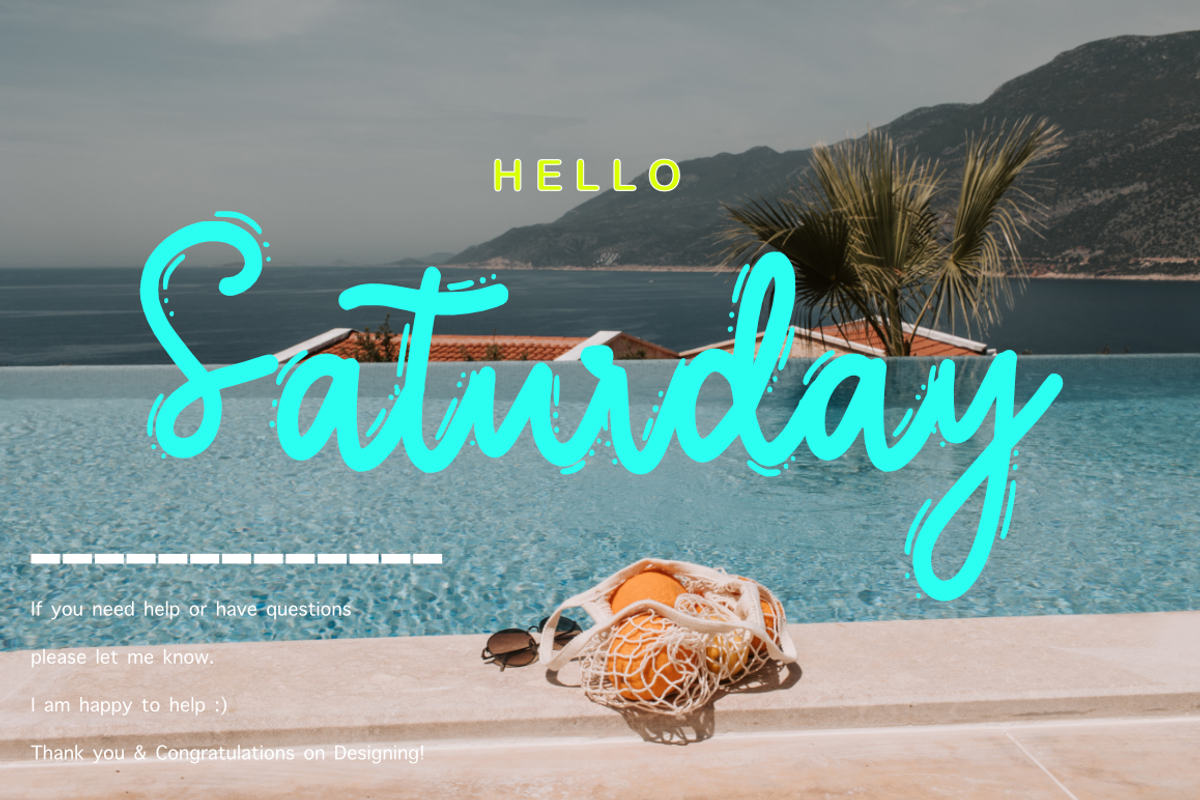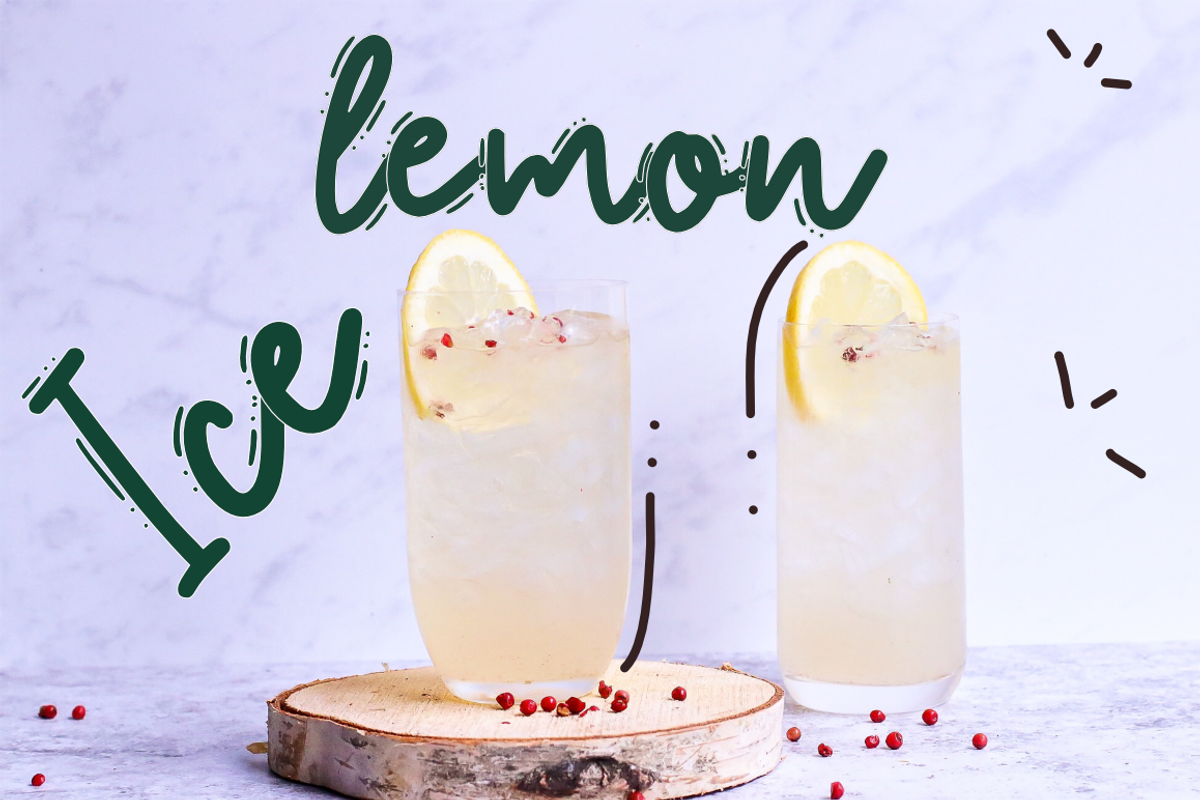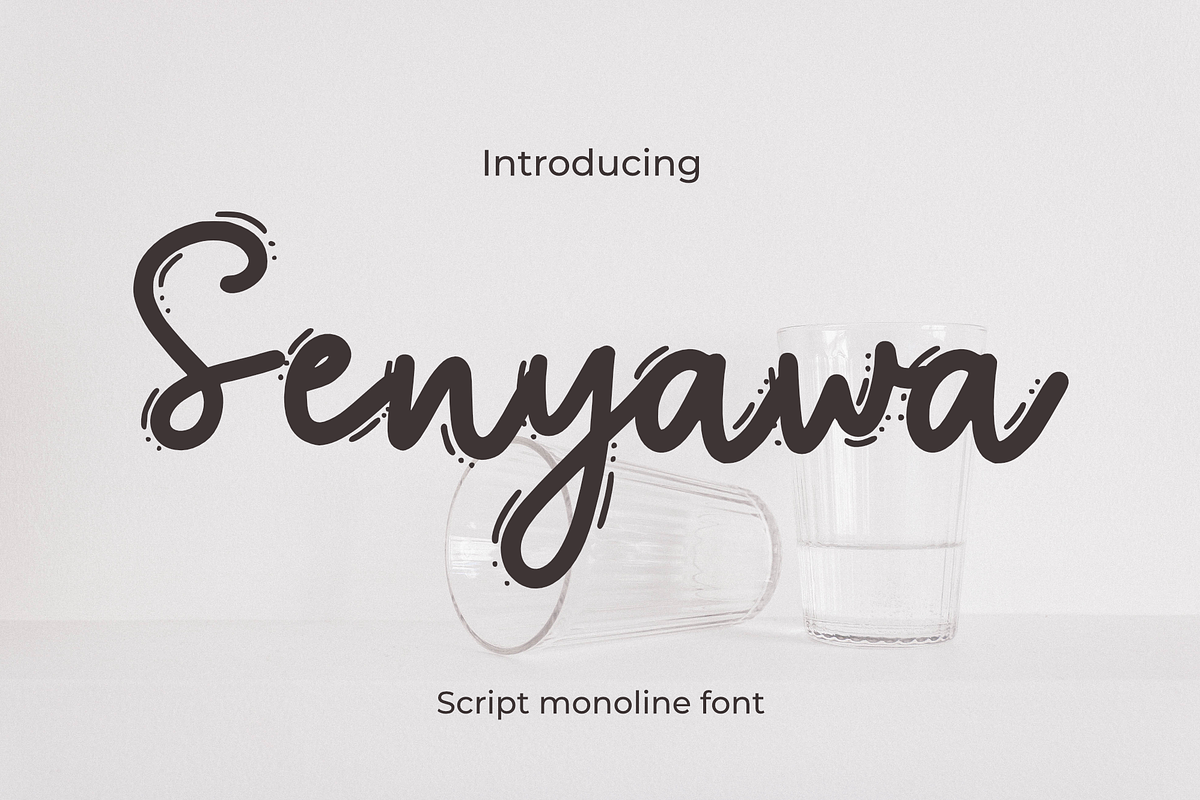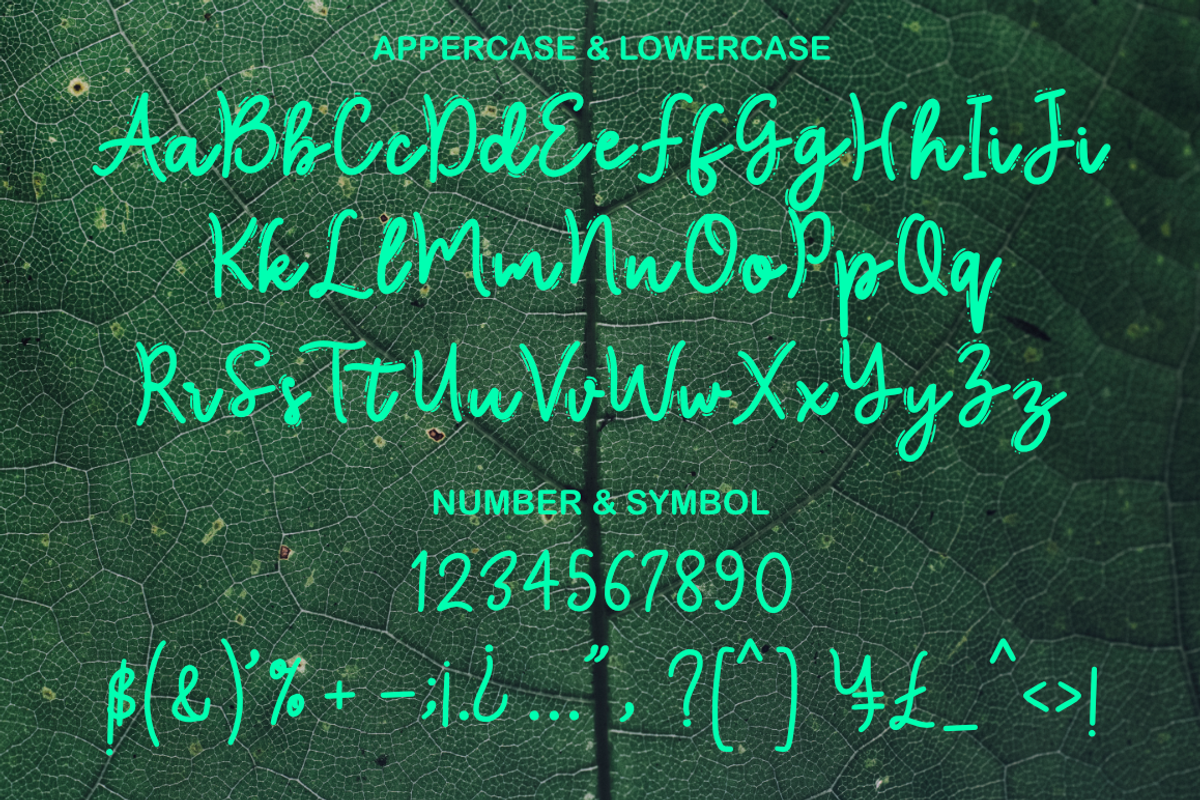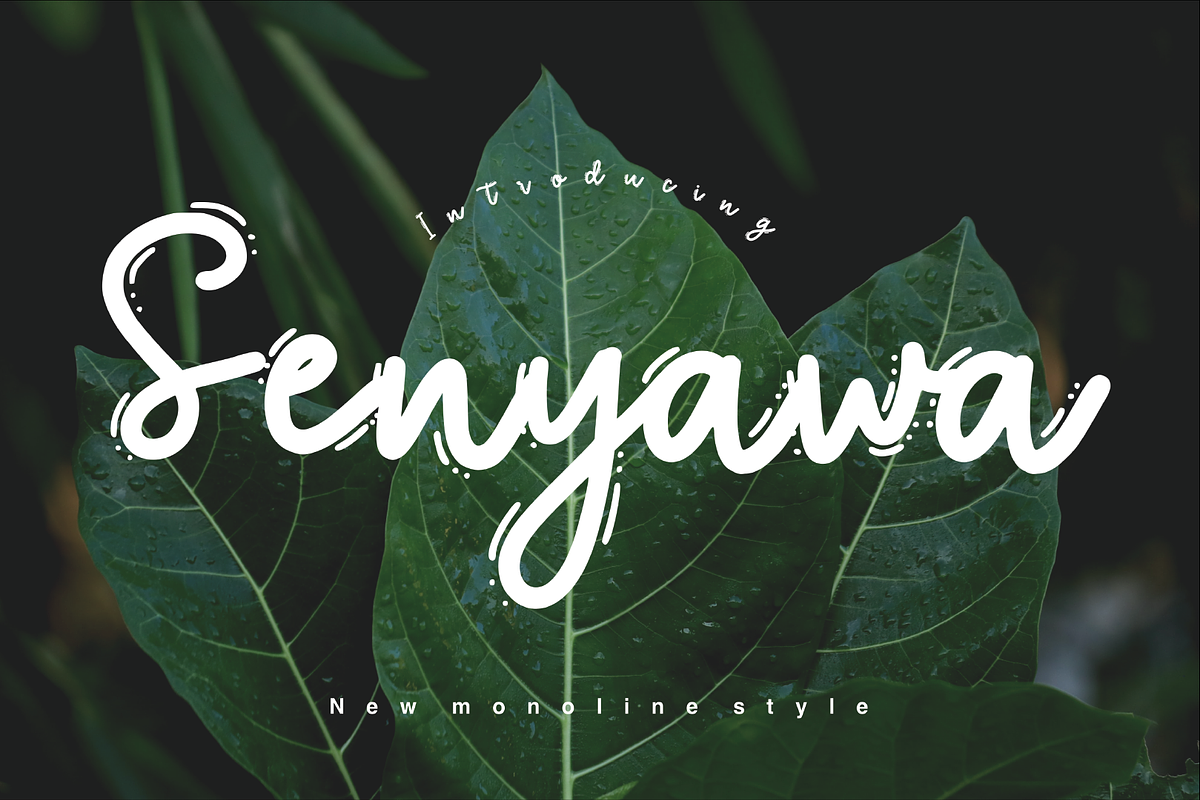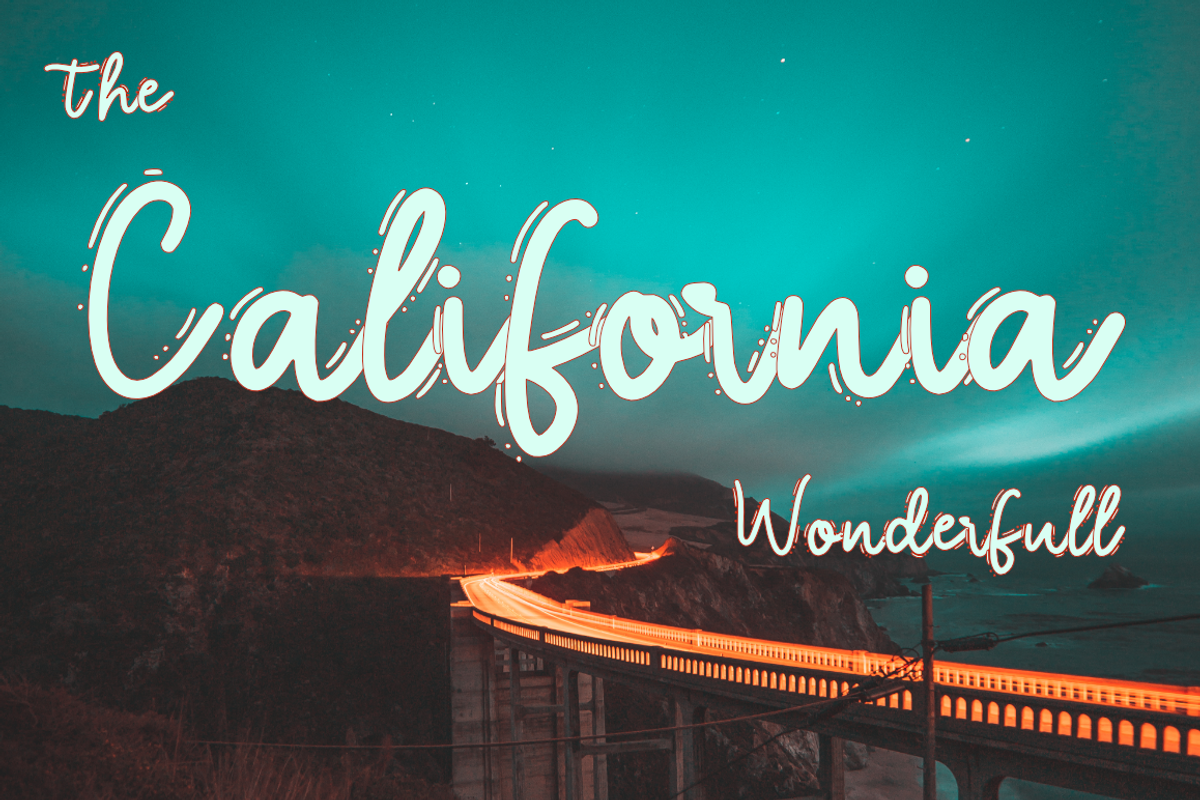
Senyawa
Senyawa Monoline style. This font was designed by handwriting, and it has a modern and unique forms of calligraphy, the writing style is very natural.
Standart ligatures
Contextual Alternates
Stylistic sets
Can be used for various purposes.such as headings, logos, wedding invitation, t-shirt, letterhead, signage, lable, news, posters, badges etc. To enable the OpenType Stylistic alternates, you need a program that supports OpenType features such as Adobe Illustrator CS, Adobe Indesign & CorelDraw X6-X7.